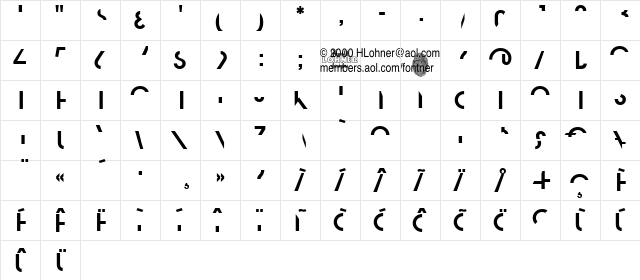
ThreePartySystemA Regular
| Copyright | Three Party System computer fonts v 1.0 00 Harold Lohner "  " members.aol.com/fontner Inspired by Barabara Butterweck's "Typeface F, Dear John" and Herb Lubalin's Avant Garde. Use layered with fonts B & C |
Design Context for ThreePartySystemA Typeface
ThreePartySystemA offers clean, dependable letterforms without strong stylistic allegiance, making it a practical choice for designers who need flexibility.